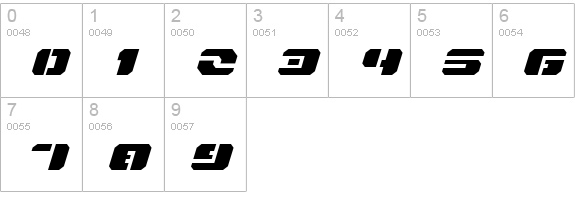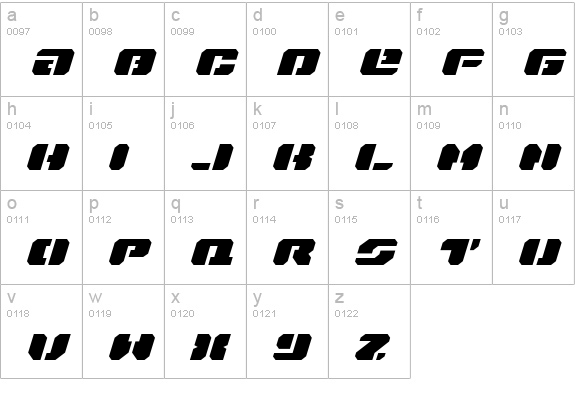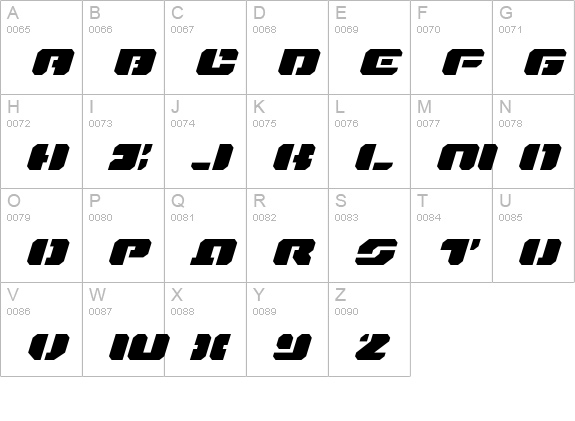
Dan Stargate Extra-expanded Italic is a distinctive, extended-width, italic variant in the Dan typeface family \xE2\x80\x94 well suited to design and typography projects.
Introducing the captivating Dan Stargate Extra-expanded Italic font, a modern and sleek typeface that exudes sophistication and elegance. With its elongated and italicized design, this font is perfect for making a bold statement in your projects. What sets Dan Stargate Extra-expanded Italic font apart is its unique combination of sharp lines and graceful curves, creating a visually striking appearance that commands attention. Whether you're designing a logo, poster, or website, this font will add a touch of class and style to your work. The best part? Dan Stargate Extra-expanded Italic font is available for free download at FontsMarket.com. That's right, you can enhance your designs with this stunning font without spending a dime. Don't miss out on the opportunity to elevate your projects with the sophistication of Dan Stargate Extra-expanded Italic font. Download it now and let your creativity soar!